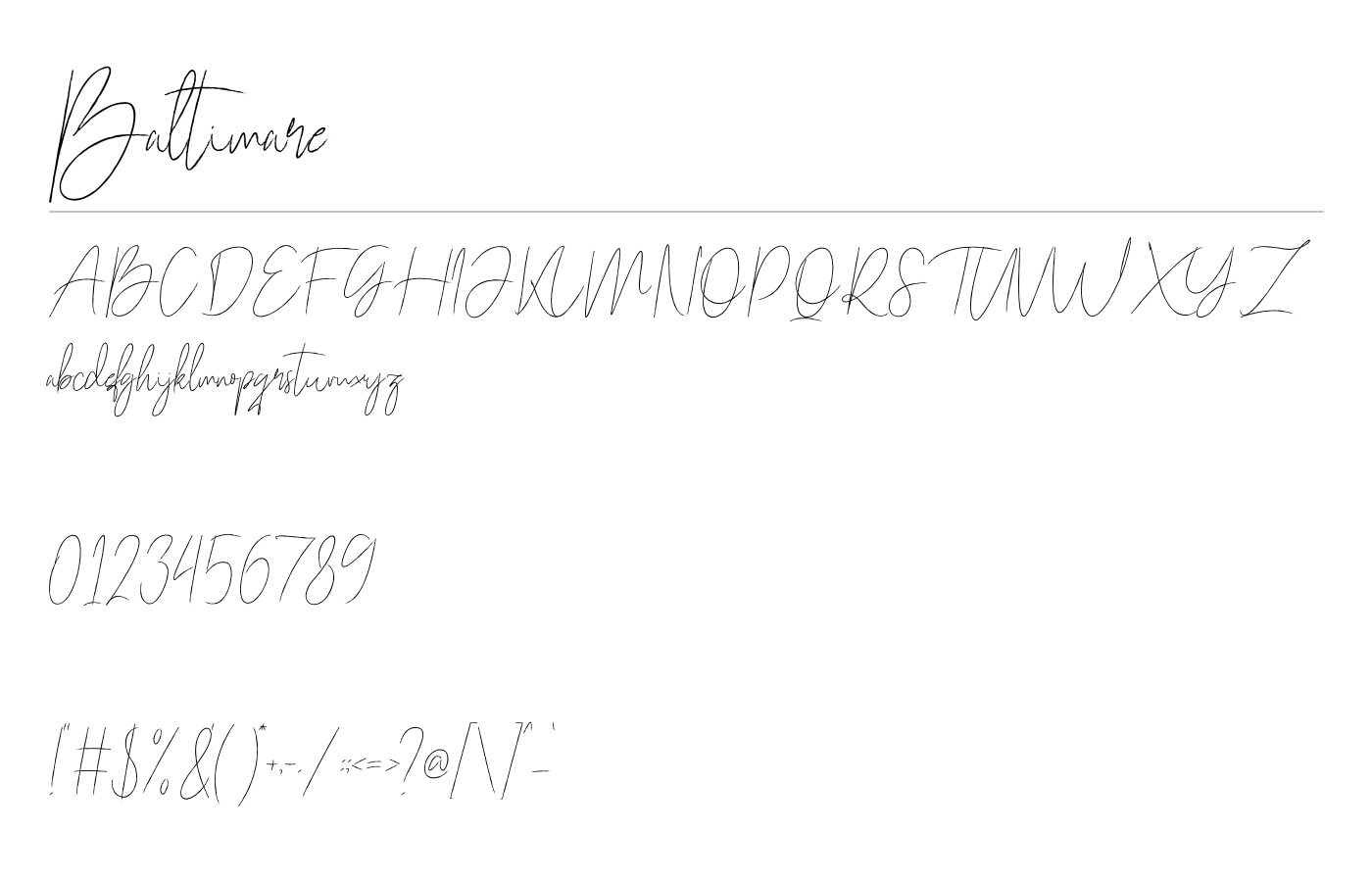
Baltimare is a delicate, handwritten script font featuring thin, flowing strokes with a natural, airy feel. Its tall, narrow letterforms and elegant curves create a refined yet casual look, making it ideal for branding, invitations, and editorial designs that seek a personal, artistic touch. This font works best in creative contexts where a subtle, sophisticated personality is desired without overpowering the design.
Baltimare Font
About Baltimare Font